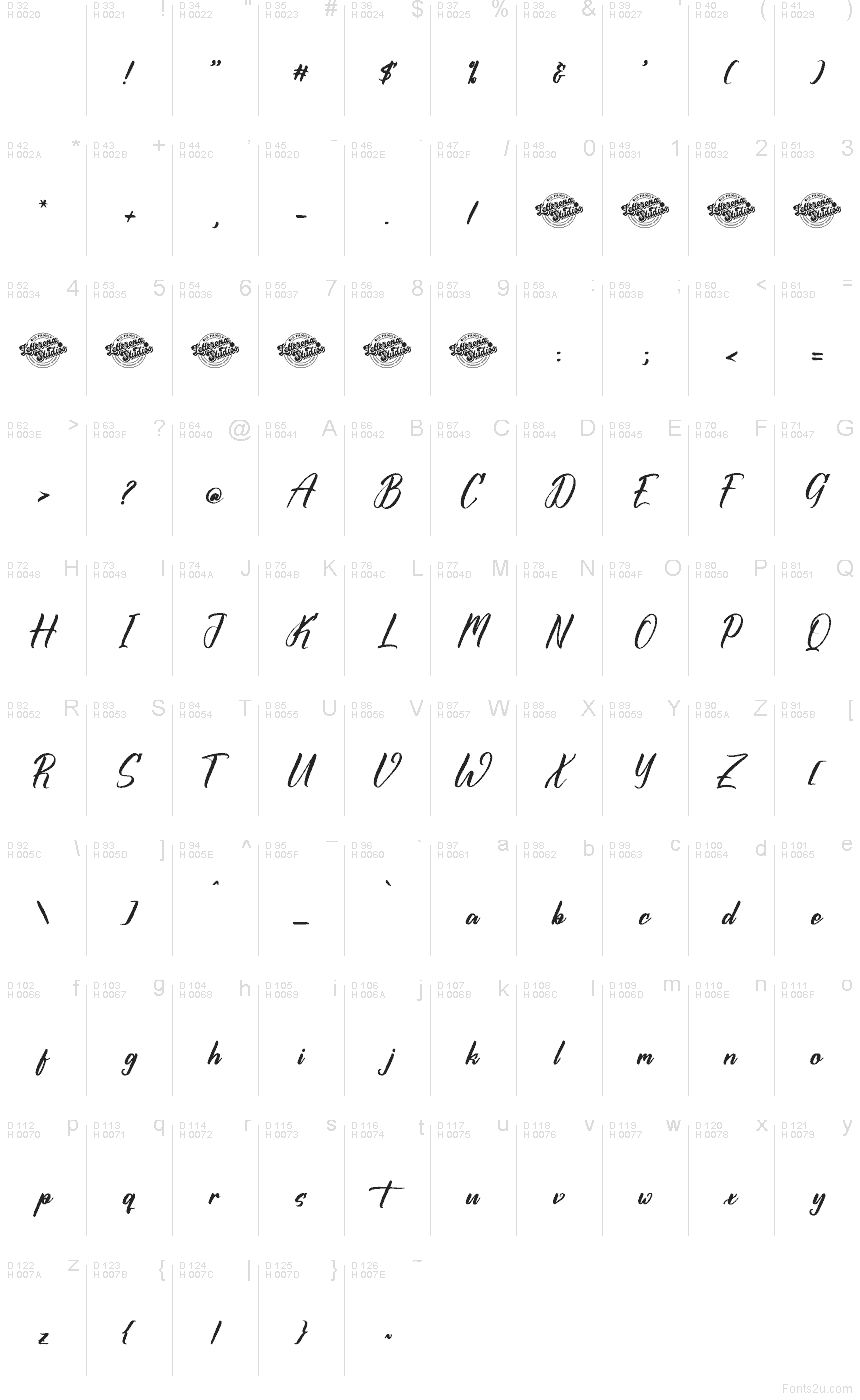
Galimunte Pogteria DEMO VERSION
Galimunte Pogteria font by Letterena Studios is a free handwritten script typeface with an inky, brushed elegance that feels both polished and personal. Its flowing curves, lively slant, and soft texture echo fast, confident pen strokes, giving your text that “written just for you” warmth while still staying legible and refined. The rhythm between thick and thin strokes adds a romantic sweep that immediately draws the eye.
Using Galimunte Pogteria font, you can bring a graceful, intimate touch to wedding invitations, save-the-date cards, boutique logos, product packaging, quote graphics, and social media headers. This free font shines when used large, where its loops and swashes can breathe; pair it with a clean sans serif for body text to keep layouts balanced and modern.